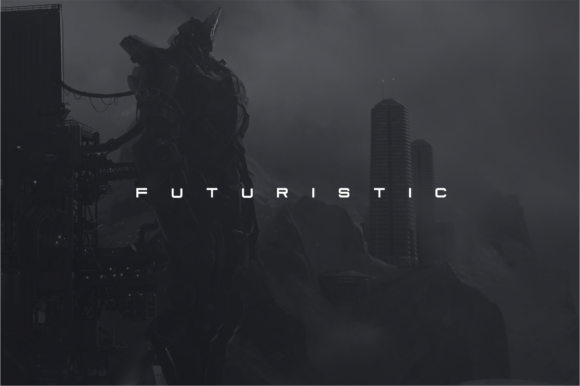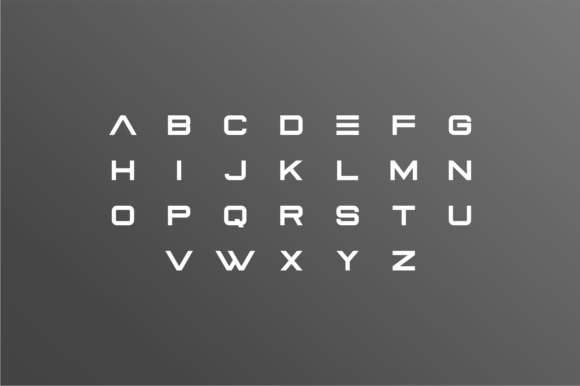
Introduction to Megum Font
Megum is a font inspired by old Science Fiction Horror movies.
Cool and elegant but still professional, it looks particularly great with wide spacing for titles This font would be ideal for web designs, business cards, or anything else that requires a unique touch.
Key Features of Megum Font